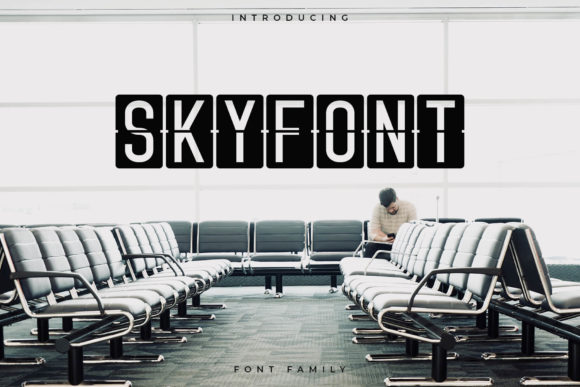
Behold, Skyfont - the modern sans serif font that spells elegance and leaves a lasting impression. Crafted by the skilled hands at RC Graphics, this font family is a study in minimalist sophistication, blending seamlessly into any design with its clean,crisp lines.
Skyfont's versatility is its crowning glory, capable of transforming your creative visions effortlessly. Whether you're weaving captivating headlines, crafting persuasive marketing materials, or designing awe-inspiring logos, Skyfont rises to the occasion, adding a touch of timeless charm and effortless style.
Feel the weight of its characters, each letter precisely chiseled to command attention without overpowering your message. Witness the subtle dance of negative space, carefully orchestrated to create an airy, breathable visual rhythm. Skyfont isn't just a font; it's a gateway to a world of refined typography where clarity and impact interlace.
With Skyfont, you inherit not just a font, but a legacy of design excellence. Trust this masterpiece to elevate your branding to new heights, attracting gazes and sparking conversations wherever your creations travel. Embrace Skyfont today, and experience the transformative power of typography.